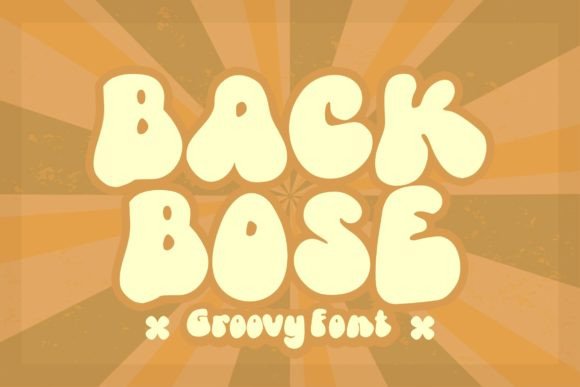
Introducing Back Bose Font: The Ultimate Retro Display Font
Are you looking for a font that can add a touch of nostalgia and excitement to your designs? Look no further than Back Bose Font! This fun, bold, and groovy display font is perfect for capturing the essence of retro vibes with its playful curves and energetic demeanor. In this article, we’ll dive into the world of Back Bose Font and explore its features, benefits, and uses.
What is Back Bose Font?
Back Bose Font is a display font designed to evoke the spirit of retro culture. Its bold and playful curves make it perfect for use in posters, album covers, branding projects, and any other design that requires a touch of nostalgia and excitement. The font’s energetic demeanor and dynamic presence make it stand out from the crowd, adding a unique and eye-catching element to any design.
Key Features of Back Bose Font
- Retro-inspired design: Back Bose Font is designed to capture the essence of retro vibes, making it perfect for designs that require a nostalgic feel.
- Bold and playful curves: The font’s bold and playful curves add a touch of excitement and energy to any design.
- Dynamic presence: Back Bose Font has a dynamic presence that makes it stand out from the crowd, adding a unique element to any design.
- Perfect for display use: This font is designed specifically for display use, making it perfect for posters, album covers, and branding projects.
Benefits of Using Back Bose Font
There are many benefits to using Back Bose Font in your designs. Here are just a few:
- Adds a touch of nostalgia: Back Bose Font’s retro-inspired design adds a touch of nostalgia to any design, making it perfect for designs that require a vintage feel.
- Grabs attention: The font’s bold and playful curves make it stand out from the crowd, grabbing the attention of your audience.
- Perfect for branding: Back Bose Font’s unique and eye-catching design makes it perfect for branding projects, helping to create a memorable and recognizable brand identity.
- Easy to read: Despite its bold and playful design, Back Bose Font is easy to read, making it perfect for use in a variety of designs.
Uses of Back Bose Font
Back Bose Font is a versatile font that can be used in a variety of designs. Here are just a few examples:
- Posters: Back Bose Font is perfect for use in posters, adding a touch of nostalgia and excitement to any design.
- Album covers: The font’s retro-inspired design makes it perfect for use in album covers, adding a touch of vintage flair to any music design.
- Branding projects: Back Bose Font’s unique and eye-catching design makes it perfect for branding projects, helping to create a memorable and recognizable brand identity.
- Logos: The font’s bold and playful curves make it perfect for use in logos, adding a touch of energy and excitement to any brand identity.
Tips for Using Back Bose Font
Here are a few tips for using Back Bose Font in your designs:
- Use it sparingly: Back Bose Font is a bold and playful font, so it’s best to use it sparingly to avoid overwhelming your design.
- Pair it with a simple font: Pairing Back Bose Font with a simple font can help to create a balanced design and avoid visual overload.
- Experiment with colors: Back Bose Font looks great in a variety of colors, so don’t be afraid to experiment and find the perfect color for your design.
- Use it in large sizes: Back Bose Font is designed for display use, so it’s best to use it in large sizes to maximize its impact.
In conclusion, Back Bose Font is a fun, bold, and groovy display font that’s perfect for capturing the essence of retro vibes. Its playful curves and energetic demeanor make it perfect for use in posters, album covers, branding projects, and any other design that requires a touch of nostalgia and excitement. With its bold and playful design, Back Bose Font is sure to grab attention and add a unique element to any design.
- What is Back Bose Font?: Back Bose Font is a fun, bold, and groovy display font designed to capture the essence of retro vibes.
- What is Back Bose Font used for?: Back Bose Font is perfect for use in posters, album covers, branding projects, and any other design that requires a touch of nostalgia and excitement.